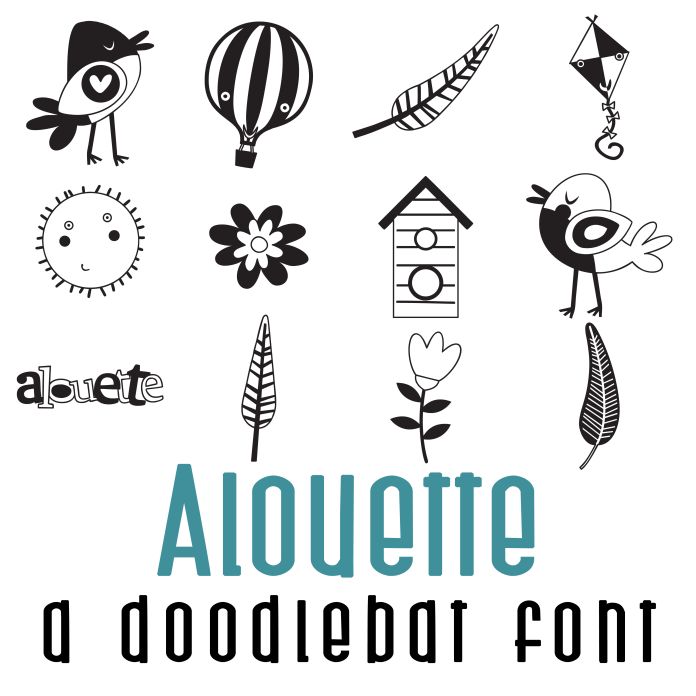
This fun doodlebat font features 26 images of birds, feathers, hot air balloons and other items perfect for cards, crafts, gifts, decor, scrapbook pages, planner stickers, and more!